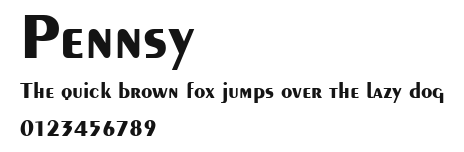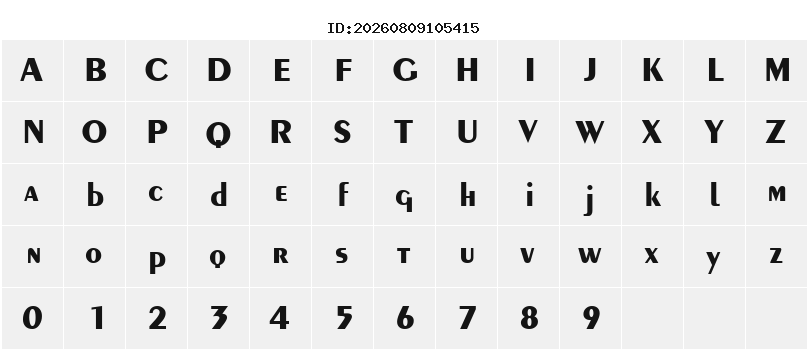
• Font Name: Pennsy
• Full Font Name: Pennsy Bold
About Pennsy.ttf
Pennsy.ttf is a modern, elegant sans-serif font designed for ultimate readability and visual harmony. Perfect for branding, headlines, web design, and print materials.